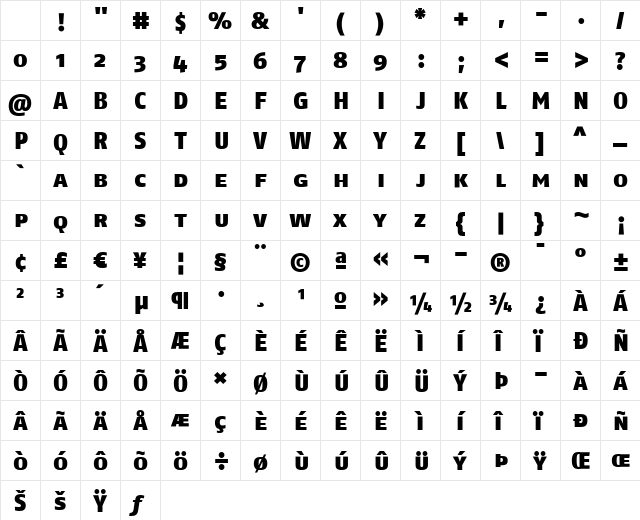
Complete FagoNo Heavy glyph index. Displaying only characters natively supported by FagoNo Heavy font.
FagoNo is a composed and adaptable typeface that performs quietly and consistently across a wide range of design contexts.